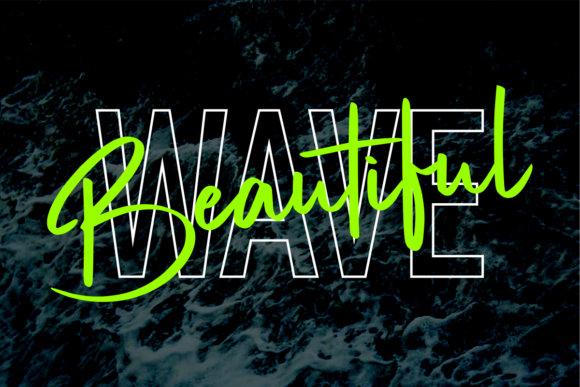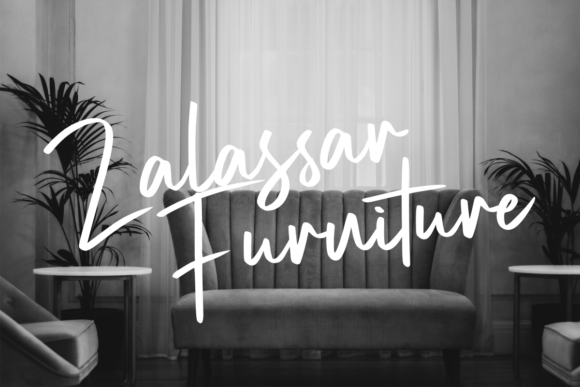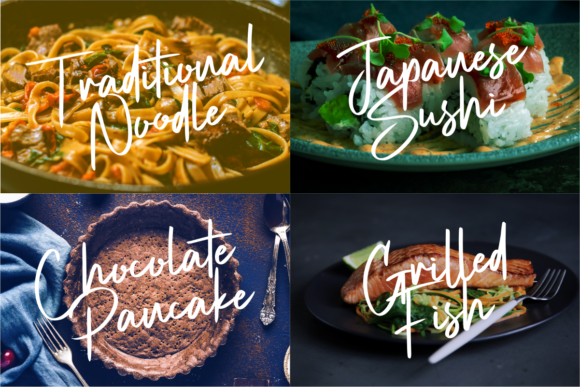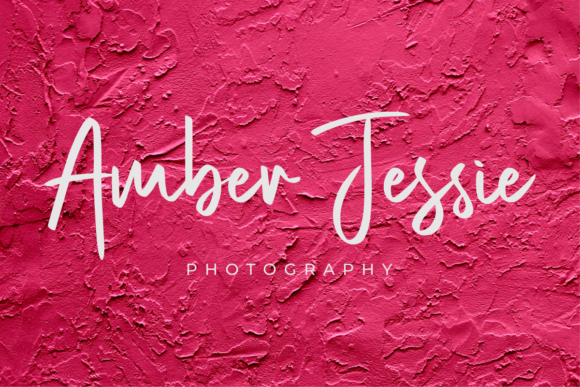
Marietta Sussaffe Font
About Marietta Sussaffe Font
Marietta Sussaffe is a beautiful and natural script with organic and smooth letters. Get inspired by its authentic charm!